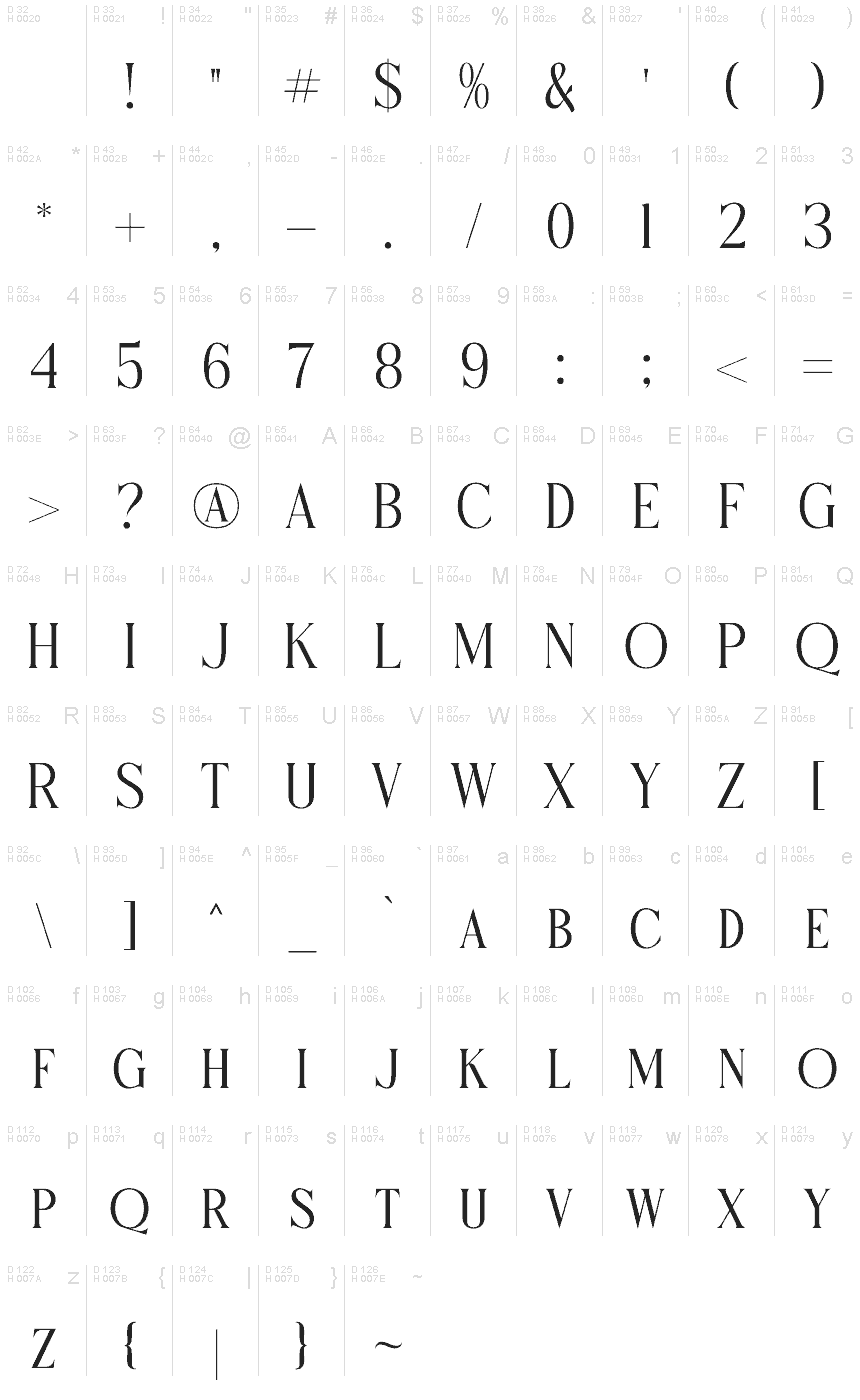
Micksenav
Micksenav font by Storytype Studio feels reminiscent of classic inspiration but within a modern and condensed twist. This elegant serif font allows for sophistication and sleek professionalism in every project where you use it. It is composed of thin strokes decorated with an occasional exceptional thickenett to impress.
This free serif font helps execute concepts for branding, packaging design, logos, titles and headlines, posters, magazines, invitations for special occasions (weddings included), roll-ups and banners, social media posts plus responsive images as well as website mockups.